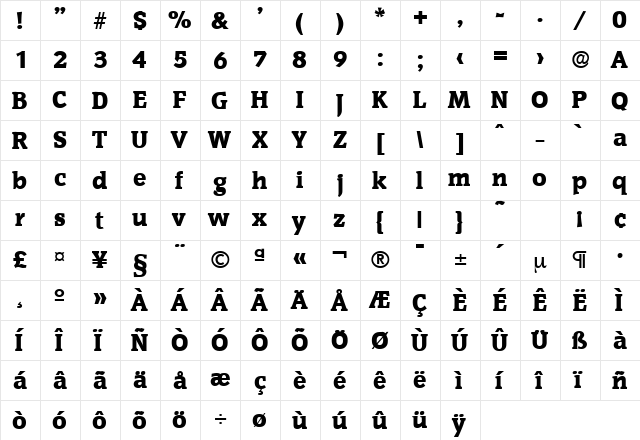
Congress-Serial-Heavy Regular
Design Context for Congress-Serial-Heavy Typeface
Congress-Serial-Heavy takes a measured approach to typography — its balanced proportions and neutral character make it a reliable workhorse for both digital and print work.